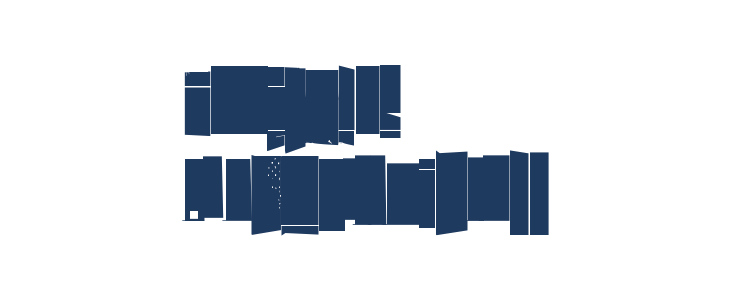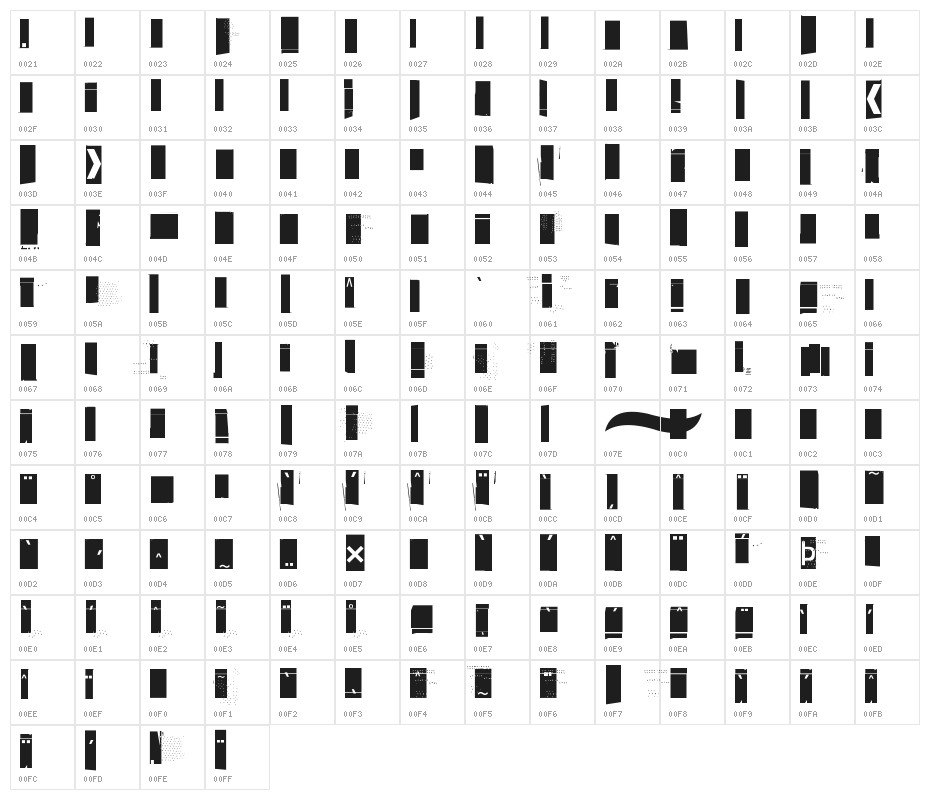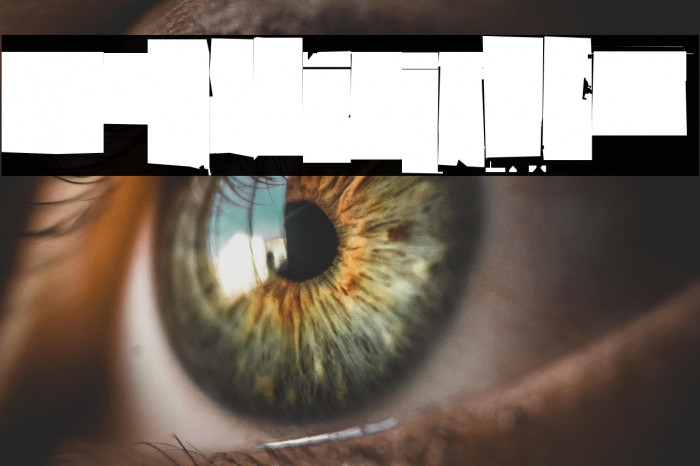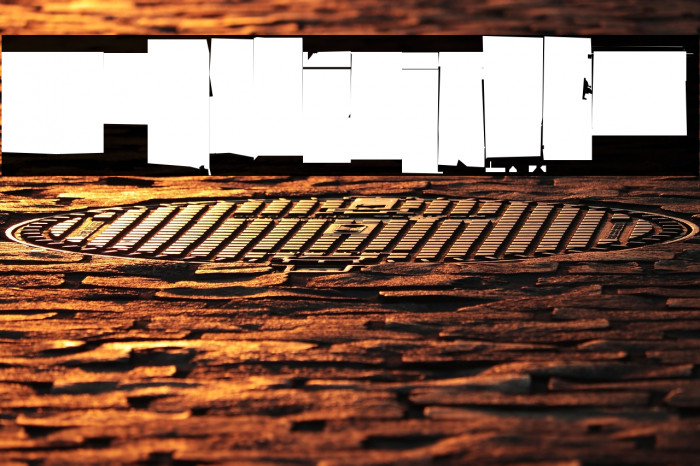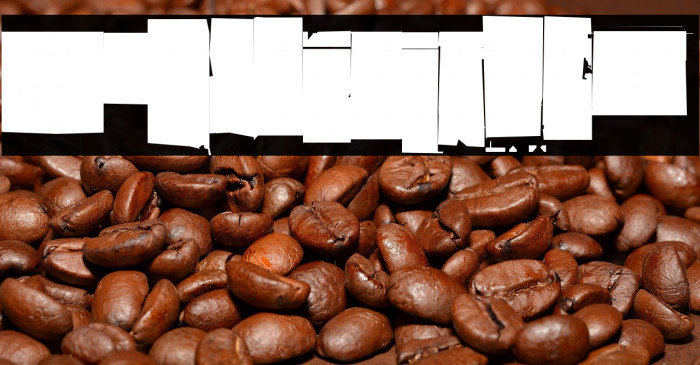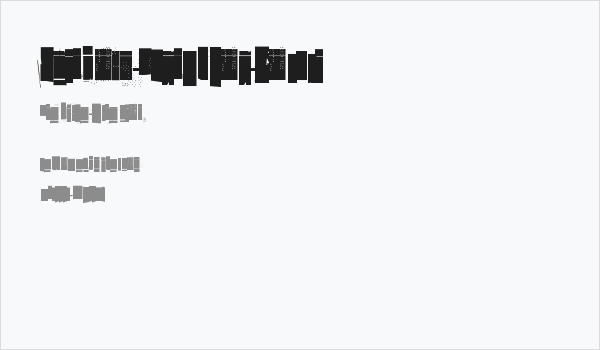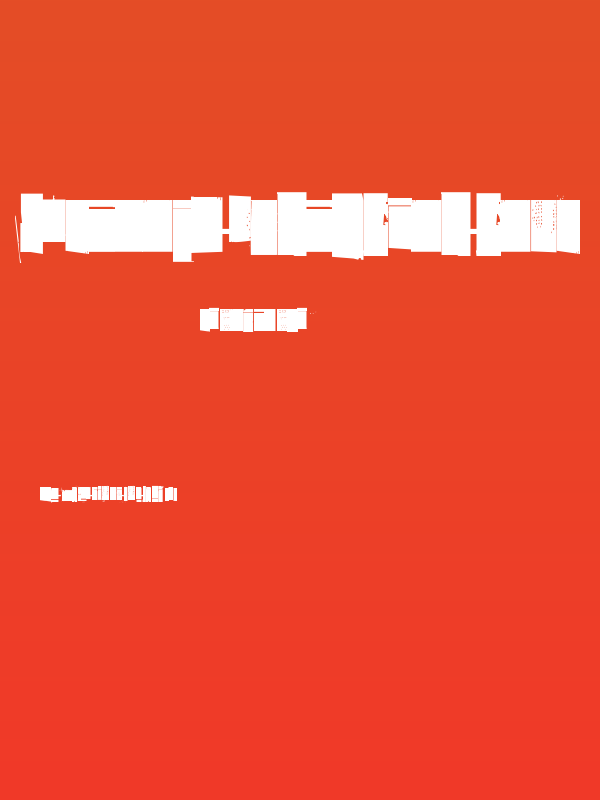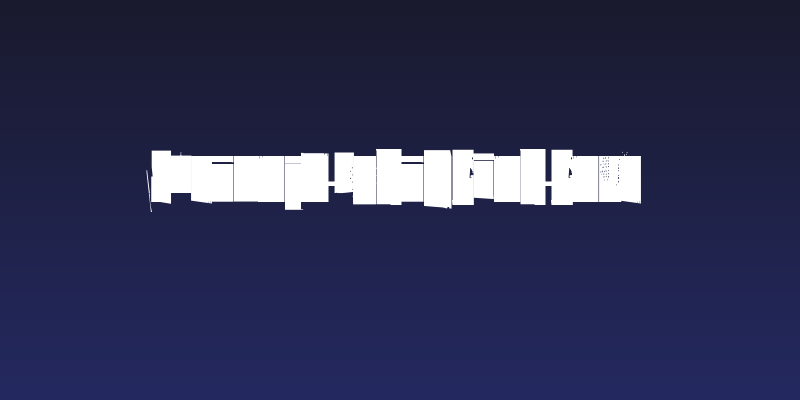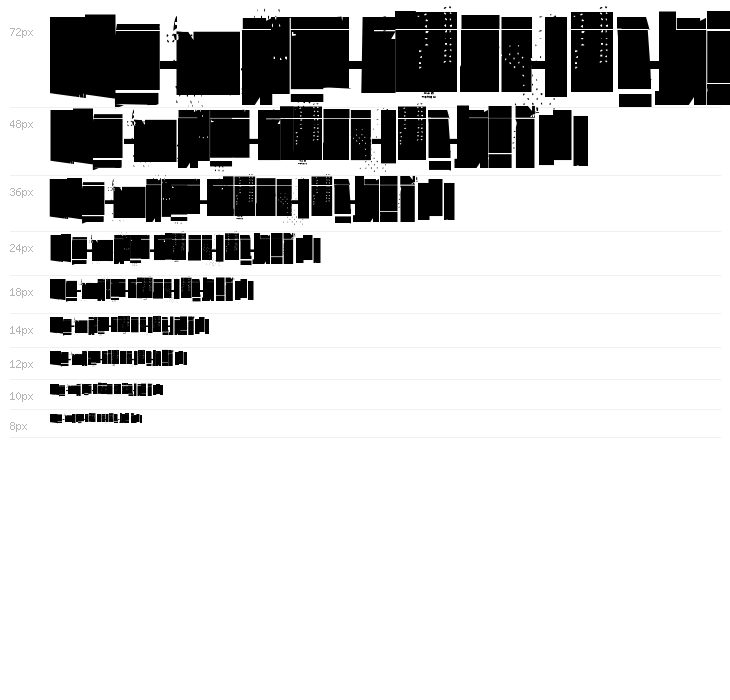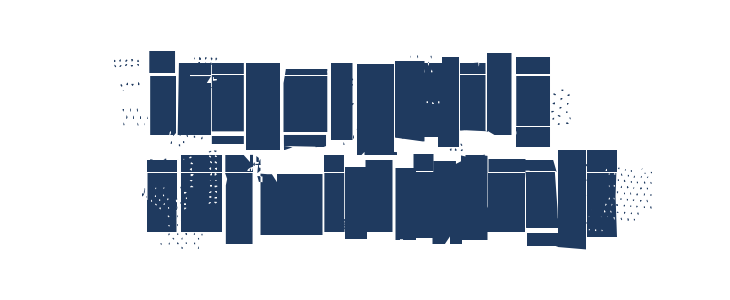
Extraoin Zhurdlyou Lost Font
Extraoin Zhurdlyou Lost Description
This font exhibits a highly distressed and grungy aesthetic, characterized by its rough, uneven edges and a texture that suggests wear and decay. The letters appear as if they have been stamped or printed with a heavy hand, resulting in a bold and impactful appearance. The irregularity in the letterforms adds a dynamic and chaotic feel, making it ideal for projects that require a raw and edgy look. The font's unique style is reminiscent of urban street art or vintage punk rock posters, providing a sense of rebellion and nonconformity. Its boldness ensures that it stands out, even in busy visual environments, making it suitable for attention-grabbing headlines or artistic designs.
| Overall Style | Grunge, Urban, Edgy |
| Use Case | Headlines, Artistic designs, Posters |
| Proposed Projects | Ideal for album covers, street art-inspired designs, rebellious branding, or edgy event posters. |